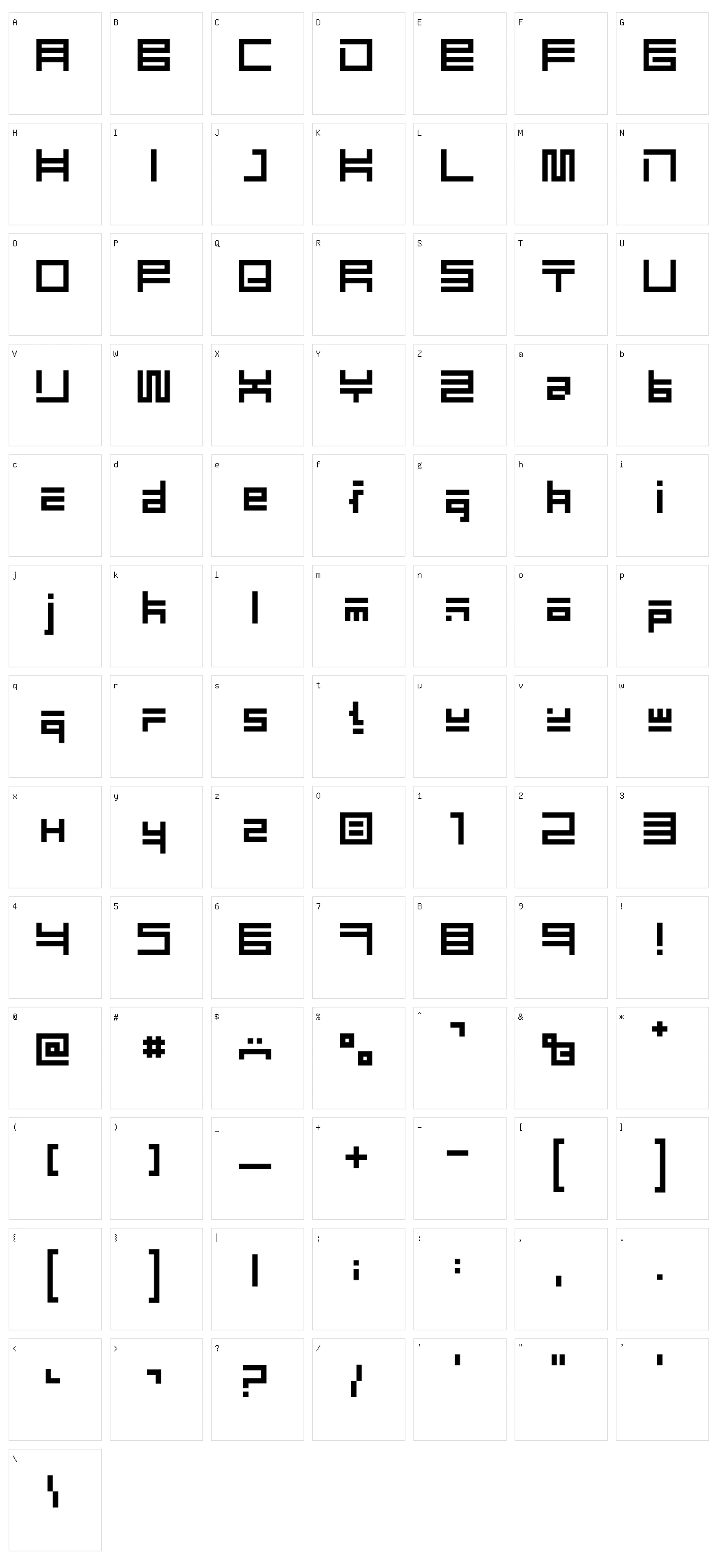
The free font Eliot type is carefully designed by Tereza Cenic, showcasing a thoughtful balance of creativity and usability and falls under the Square font style. When you download the ZIP file, it contains only 13.71 KB of font files, making it lightweight and quick to download. Please review the license details below to understand permitted usage and distribution rights. If license information is not available, we recommend using this font for personal projects only or contacting the author directly for commercial usage permissions.